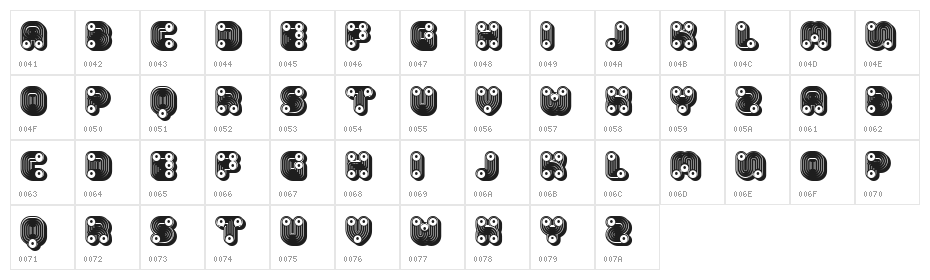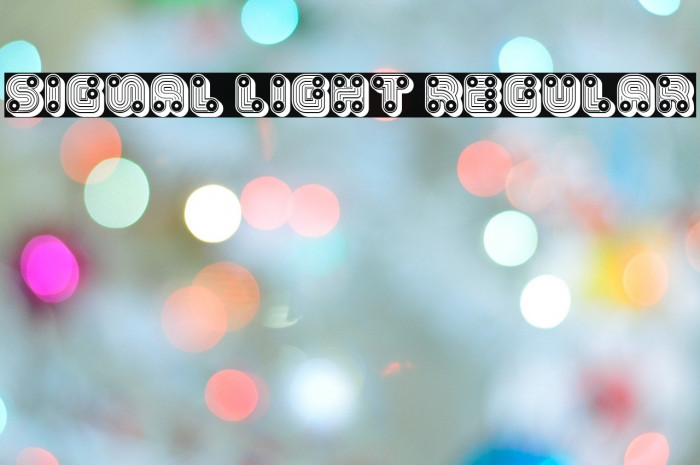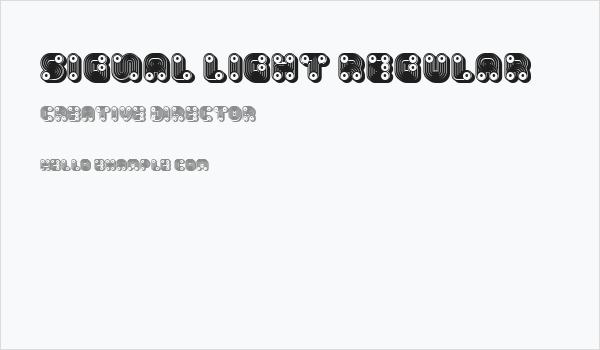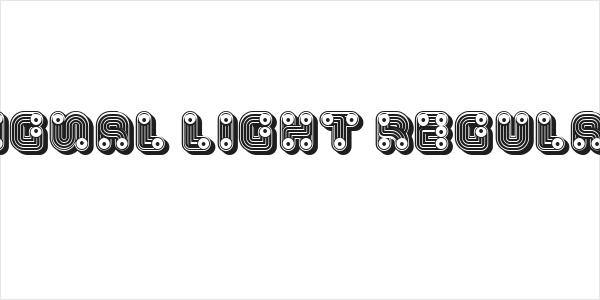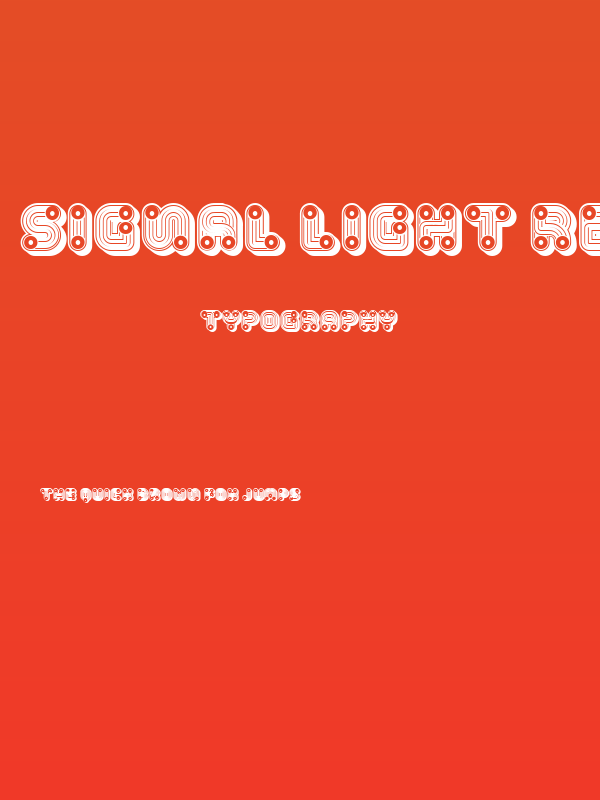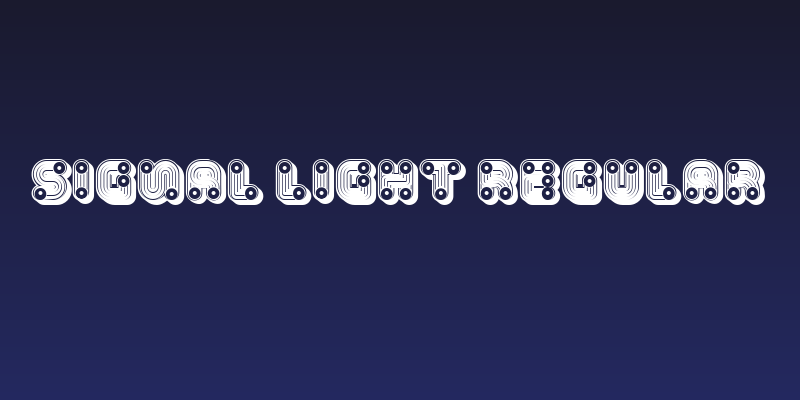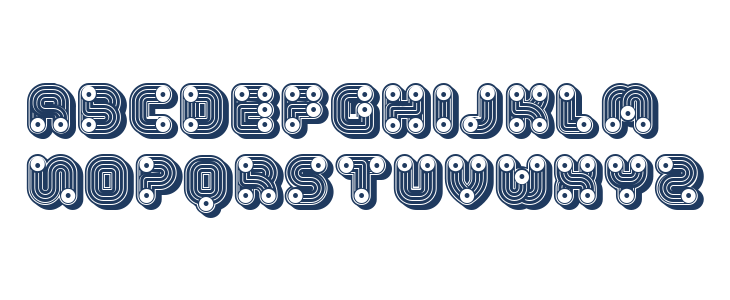
Signal Light Regular Font
Signal Light Regular Description
This font features a unique and intricate design with a futuristic and digital aesthetic. Each character is composed of multiple concentric lines that create a layered effect, reminiscent of circuit boards or neon lights. The letters are bold and eye-catching, with a geometric structure that emphasizes symmetry and balance. The use of negative space within the characters adds to the complexity and visual interest, making it suitable for projects that require a modern and technological feel.
| Proposed Projects | Ideal for tech-related branding, digital art, sci-fi posters, and modern advertising campaigns. |